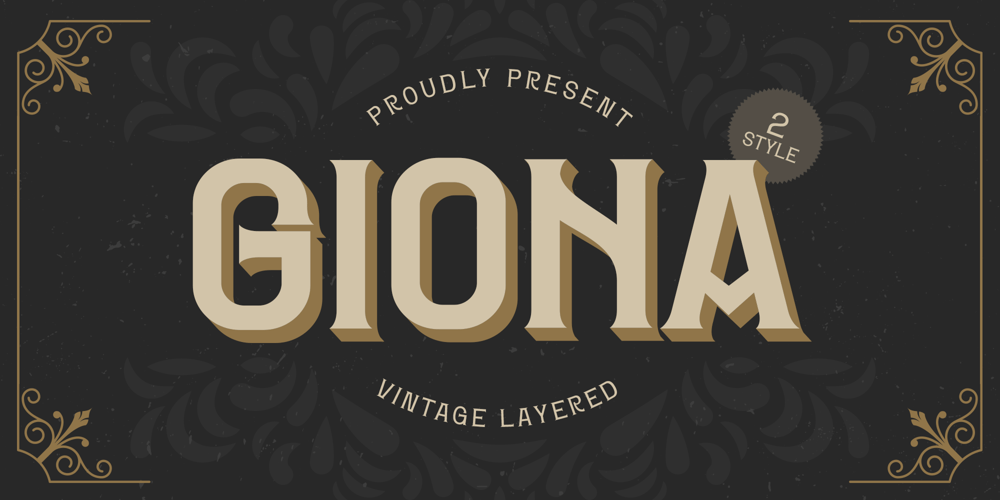
Giona Layered Vintage Font Family was designed by panji nugroho and published by Storictype. Giona Layered Vintage contains 2 styles and family package options. Giona Layered Typeface was inspired by classic vintage style from 1900s which combining classic typography with awesome bold ring classic touch on this decade :), it works well with normal size text but it works even better for large displays or short words.This font is very suitable for use in your product design if you want to emphasize a vintage, European-style classic, elegant and exclusive impression. However, this font can be used on many product designs of various types such as drink bottles, coffee shops, fashion products, book covers, product labels, product logos, bakery etc. Use this font and see the difference.Giona Features : Uppercase Lowercase Numerals & Punctuations Multilinggual Support Thank YouAbove the description of this font, I hope you’re satisfied with what I have created. if there’s anyone who purchase and find some problem, don`t hesitate to using product support